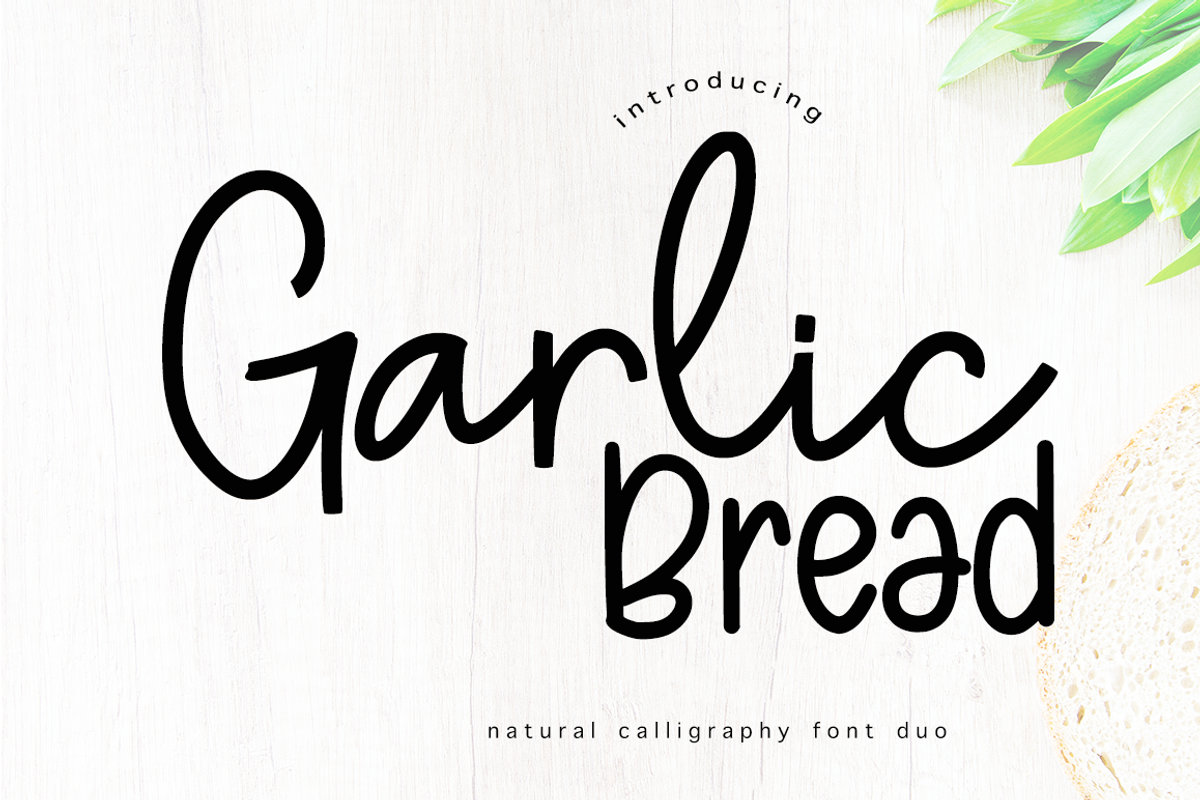
Garlic Bread Font Free Download is a fun, quirky, and delightfully bold typeface that brings a playful twist to any design. With its chunky letterforms and casual charm, Garlic Bread is perfect for food-related branding, cafe menus, children’s book titles, party invitations, stickers, and cheerful social media content.
Designed to feel friendly and full of flavor, Garlic Bread Font Free Download combines a hand-crafted feel with bold readability. Its bubbly and rounded style adds warmth and personality, making it a standout choice for anything lighthearted and creative.